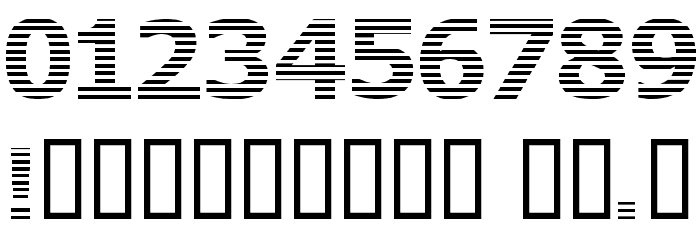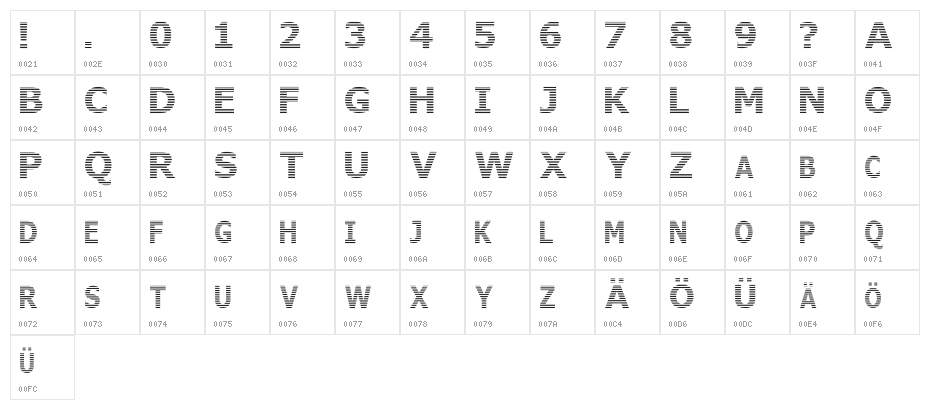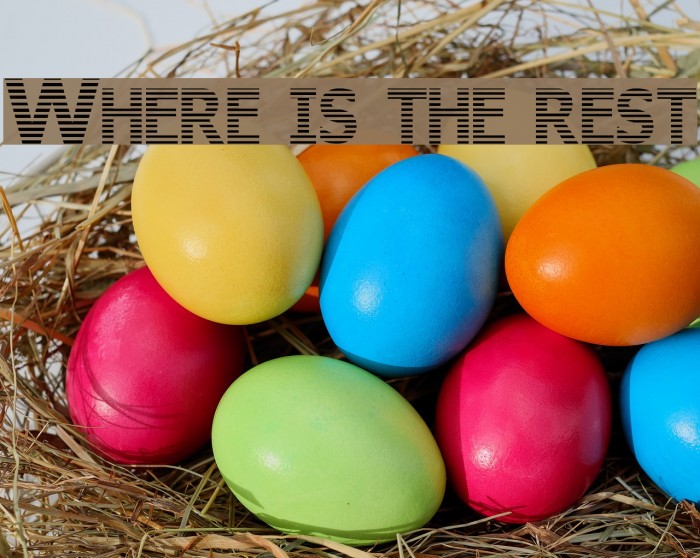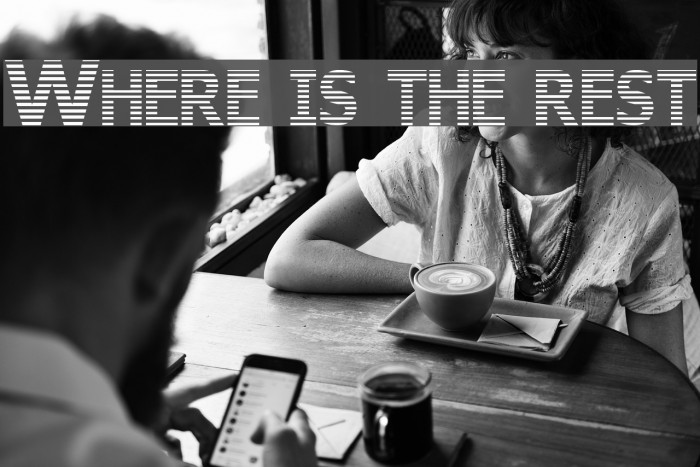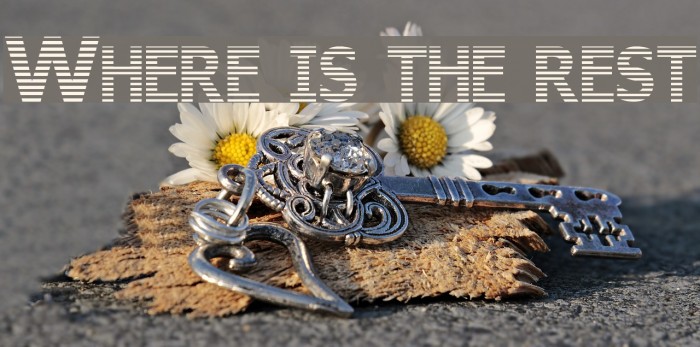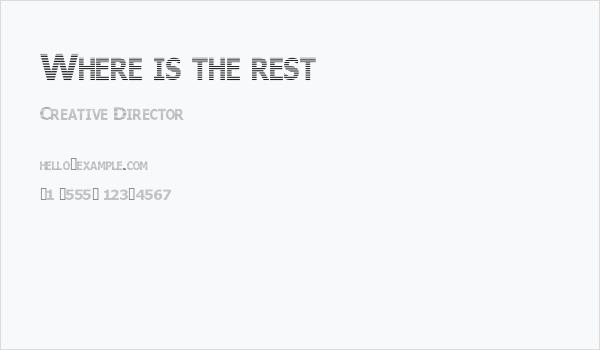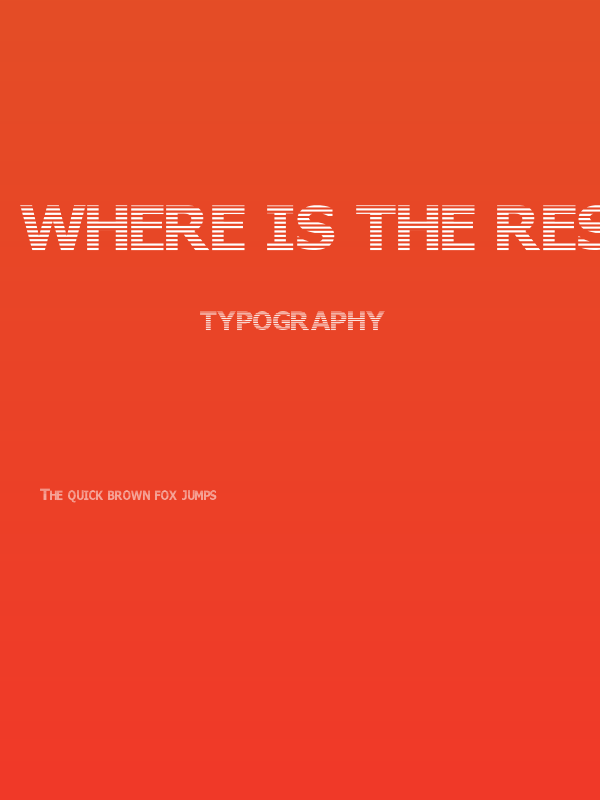
Where is the rest Font
Where is the rest Description
This font features a unique striped pattern across each character, creating a dynamic and eye-catching effect. The uppercase letters are bold and evenly spaced, with a modern and geometric design. The numbers follow the same style, ensuring consistency throughout. The special characters are also designed with the same striped pattern, adding a cohesive look to the entire set. This font is ideal for projects that require a bold statement and a modern aesthetic, such as posters, headlines, and branding materials.
| Proposed Projects | Ideal for posters, headlines, branding, and any project needing a bold, modern statement. |